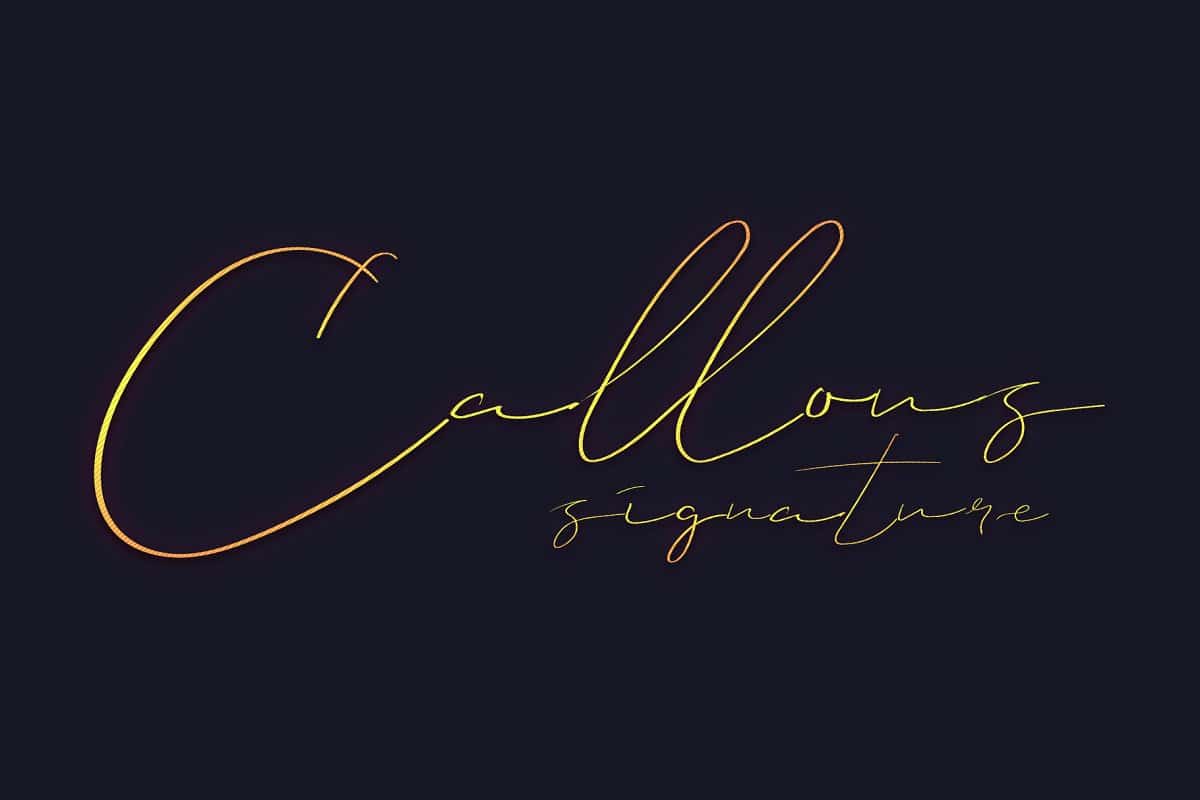
Callous Signature Font
Hello there, here is another script font. This Callous Font is perfect for you to use it on your design logo, banner, poster, or even a signature design. This is an original hand writing font, perfect for give your design an authentic touch.